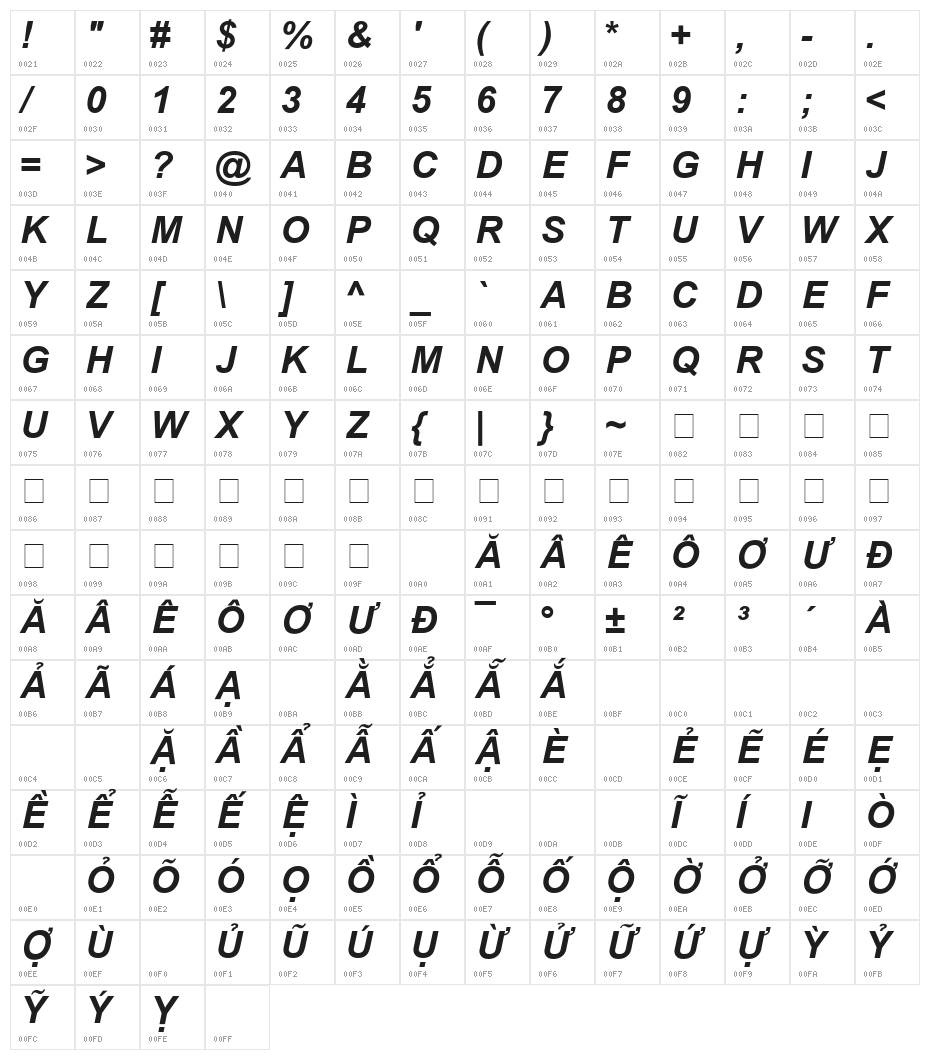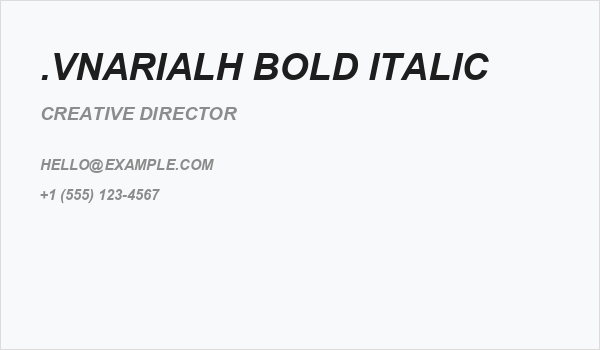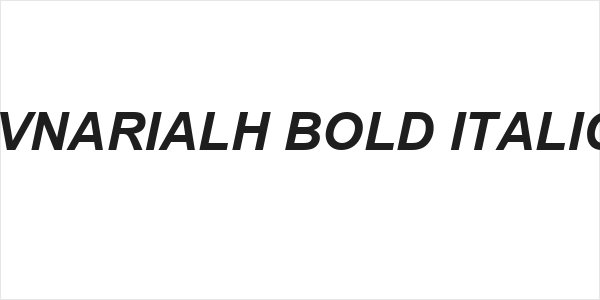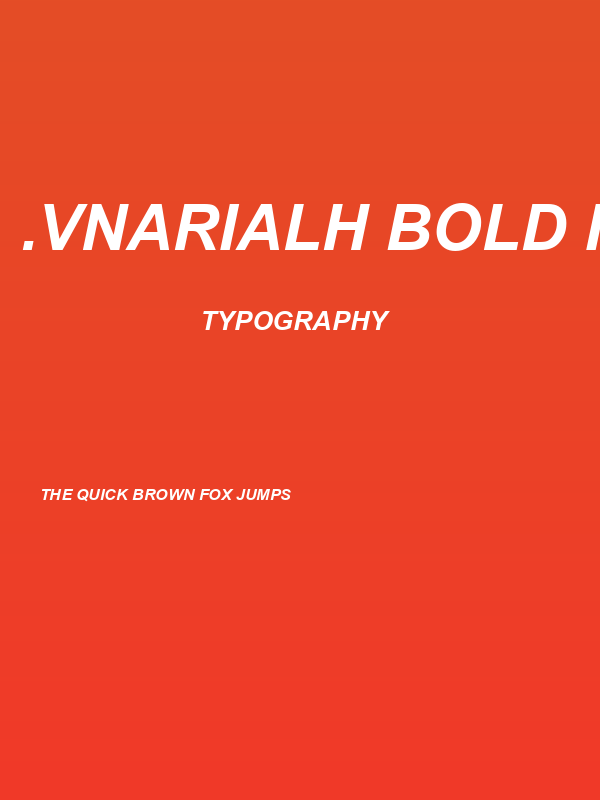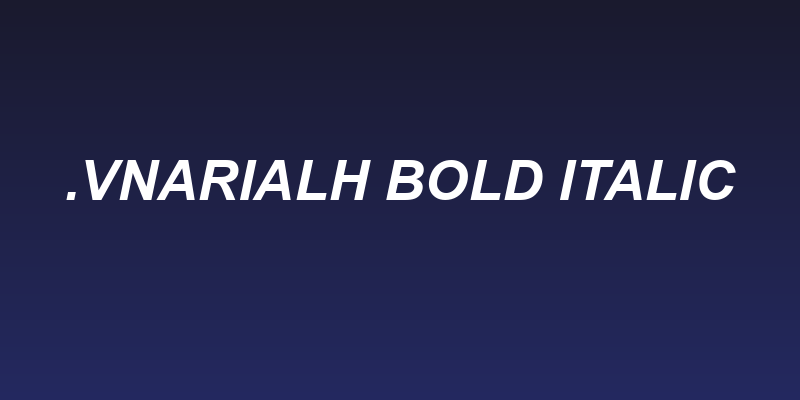
.VnArialH Bold Italic Font
.VnArialH Bold Italic Description
This font features a bold and italicized style, giving it a dynamic and assertive appearance. The characters are slightly slanted, enhancing the italic effect, while the bold weight ensures strong visibility and impact. The sans-serif design contributes to a clean and modern look, making it suitable for various contemporary applications. The uniform stroke width across characters provides a consistent and cohesive appearance. The character spacing is normal, allowing for easy readability without appearing cramped or overly spaced. This font is versatile, suitable for both digital and print media, and can effectively convey messages with clarity and emphasis.
| Use Case | Headlines, Logos, Advertising |
| Proposed Projects | Ideal for headlines, advertising, branding, and digital media where a strong and modern impression is needed. |